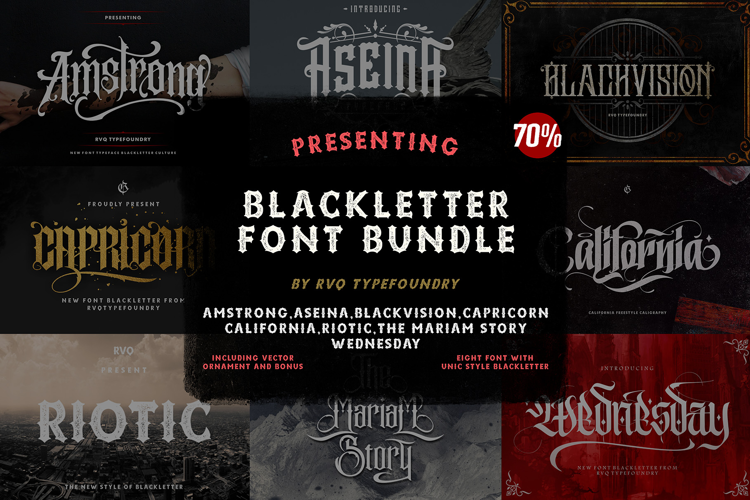
Blackletter Font Bundle
Blackletter font bundle is suitable font for many creative products & designs.
• Character Set A-Z
• Numerals & Punctuations (OpenType Standard)
• Accents (Multilingual characters)
• Swash and ligature